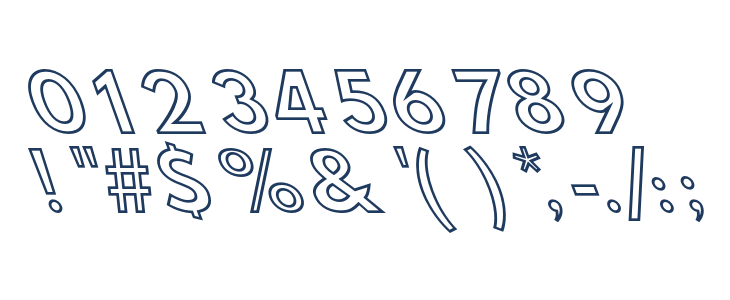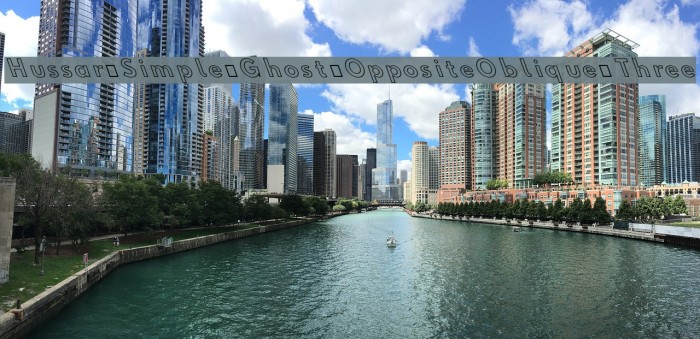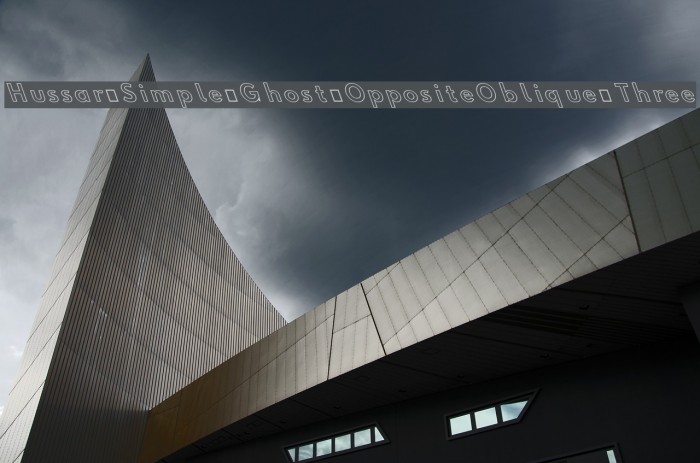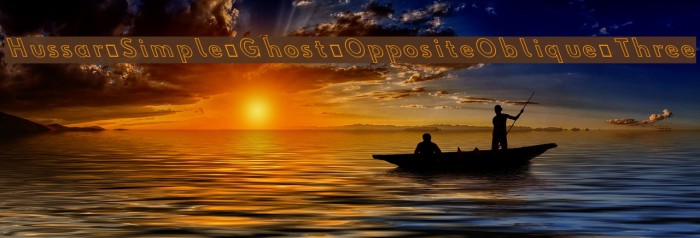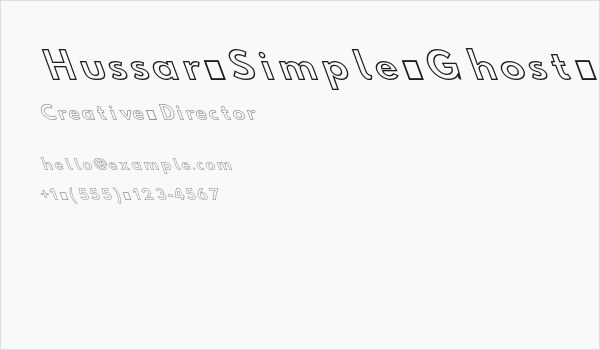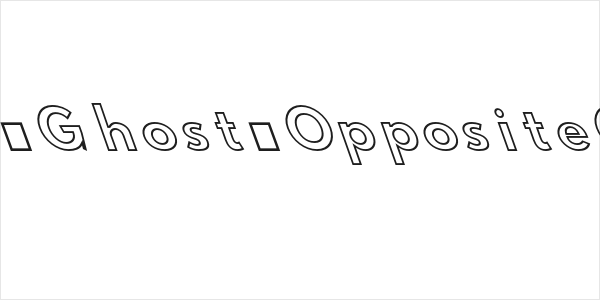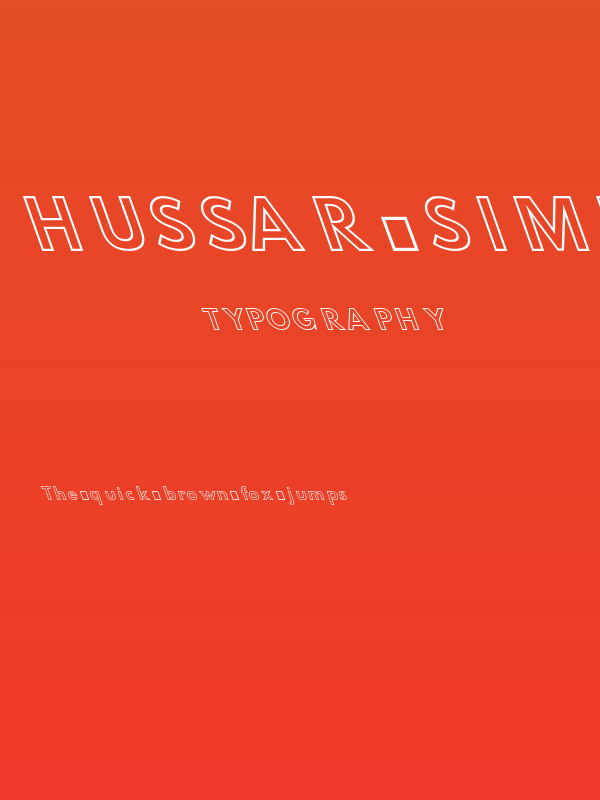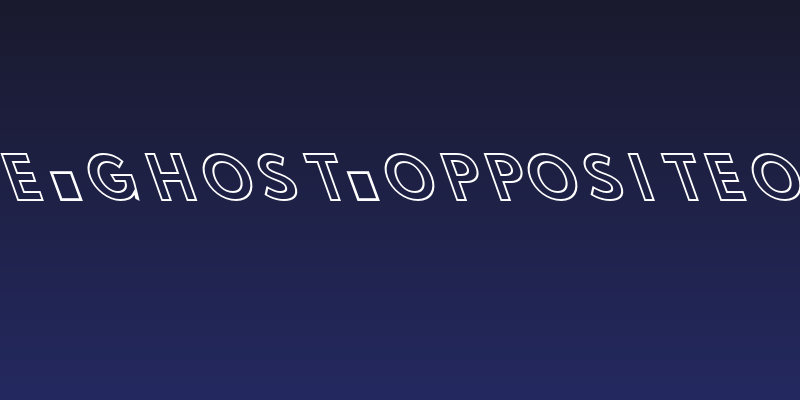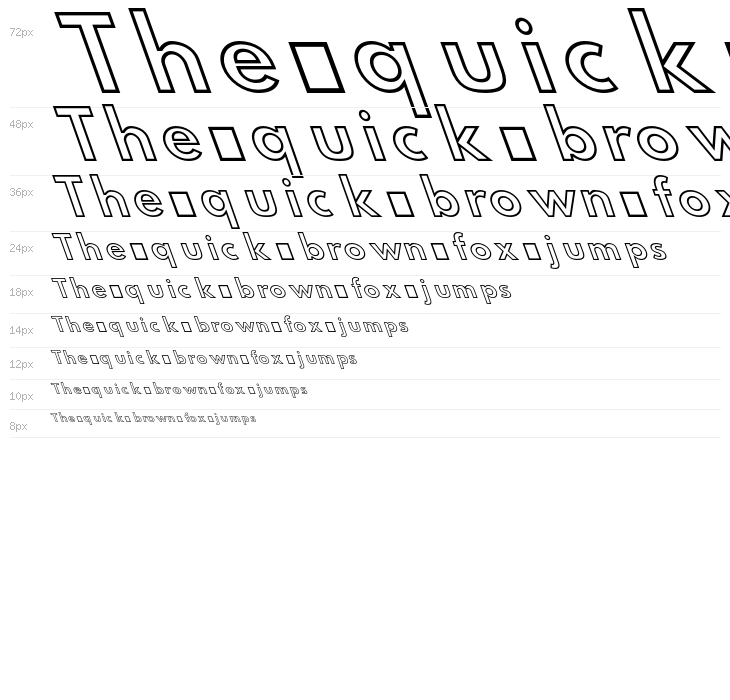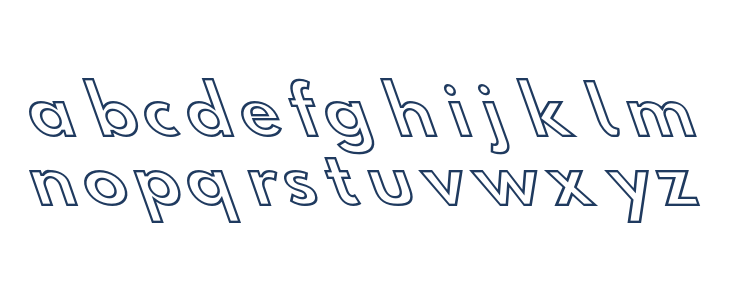
Hussar Simple Ghost OppositeOblique Three Font
Hussar Simple Ghost OppositeOblique Three Description
This font features a unique outline style with a modern twist, characterized by its oblique orientation. The uppercase and lowercase letters maintain a consistent geometric form, providing a clean and structured appearance. The numerals and special characters are designed to match the overall aesthetic, ensuring uniformity across all glyphs. The font's open and airy design makes it suitable for projects that require a contemporary and stylish look. Its distinct outline effect adds a layer of sophistication, making it an excellent choice for creative and artistic applications.
| Proposed Projects | Ideal for branding, posters, headlines, and digital artwork that require a modern and artistic touch. |